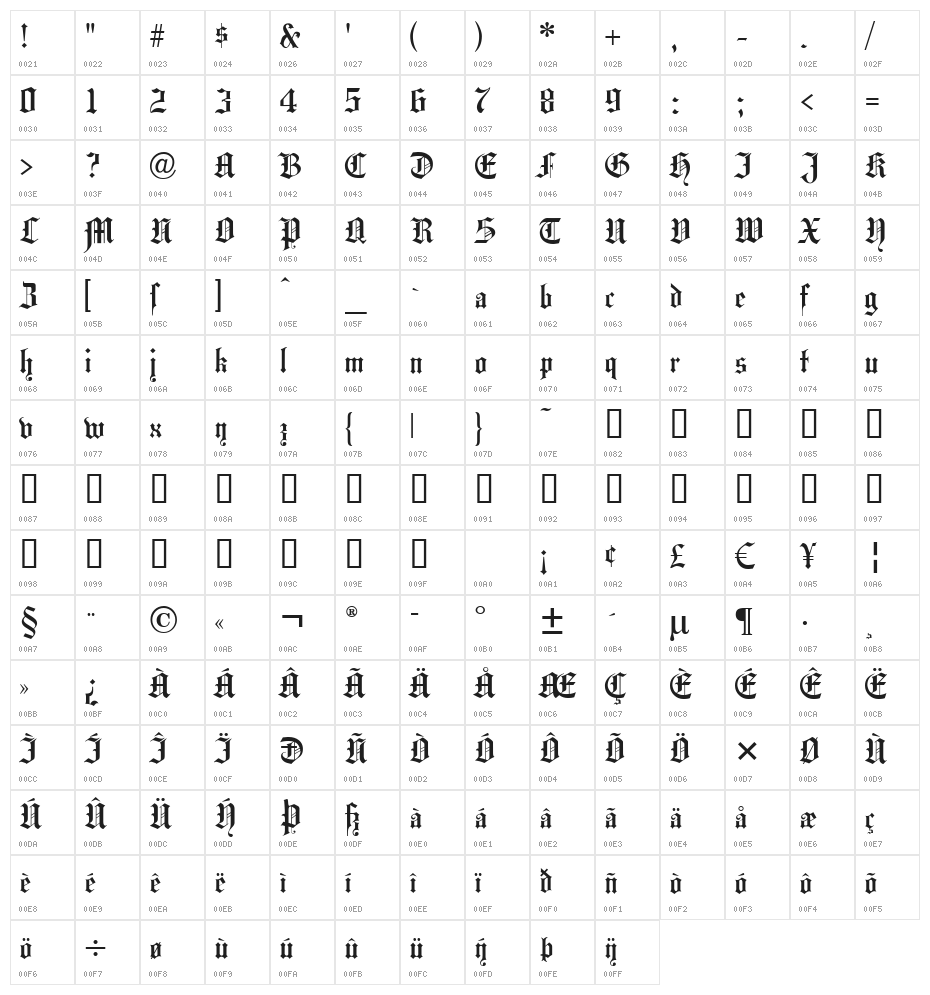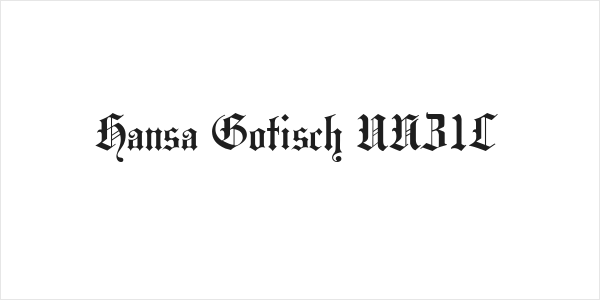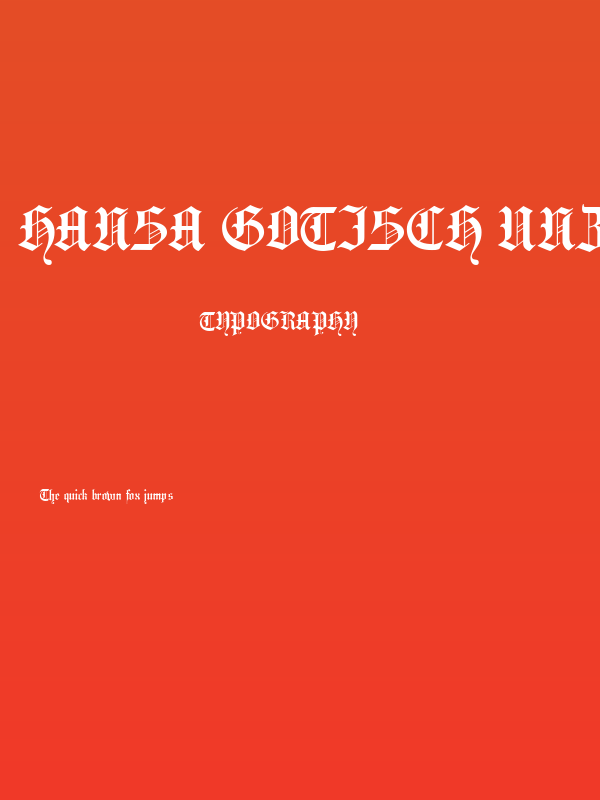
Hansa Gotisch UNZ1L Font
Hansa Gotisch UNZ1L Description
This font features a traditional blackletter style, characterized by its intricate and ornate letterforms. The uppercase letters exhibit sharp, angular strokes with decorative elements, while the lowercase letters maintain a consistent flow with a slightly more rounded appearance. The numerals are bold and distinct, matching the overall gothic aesthetic. Special characters are crafted with the same attention to detail, ensuring a cohesive look across all glyphs. This font's historical and dramatic flair makes it suitable for projects that require a touch of medieval or vintage elegance.
| Use Case | Logos, Headlines, Decorative purposes |
| Proposed Projects | Ideal for historical documents, vintage posters, book covers, and branding that requires a medieval or gothic touch. |